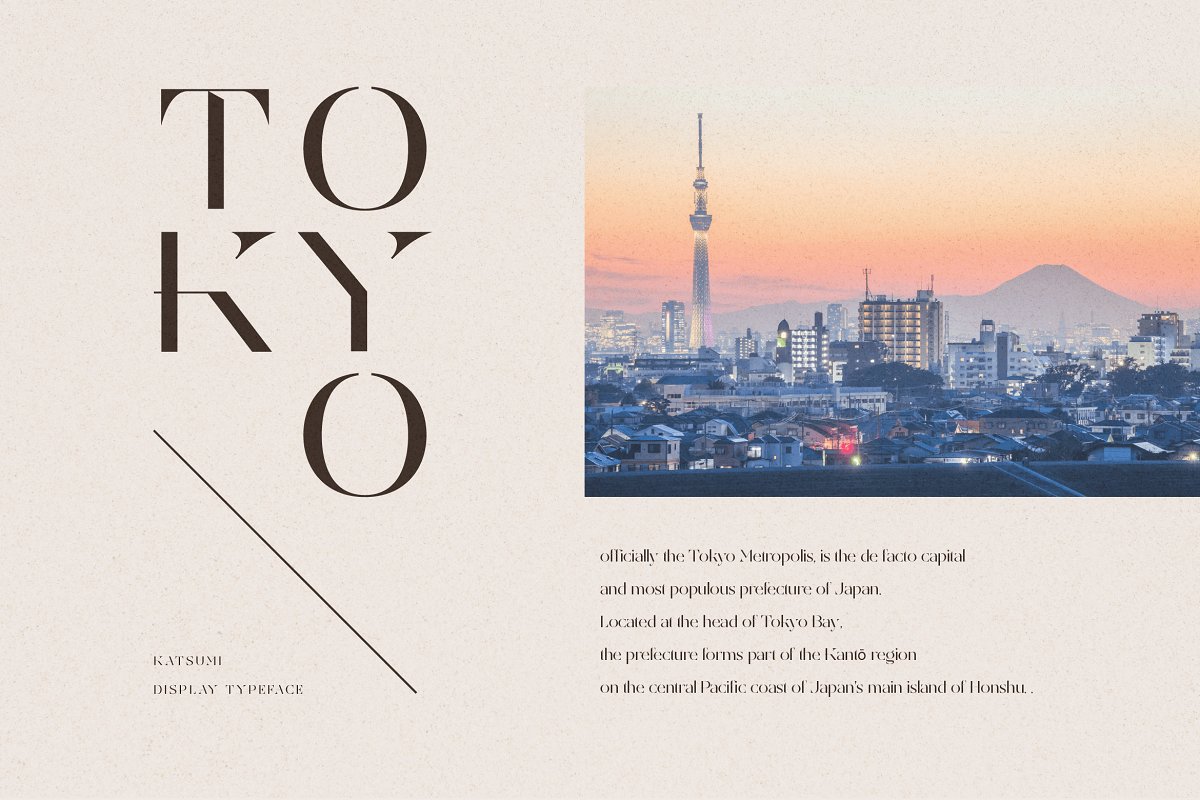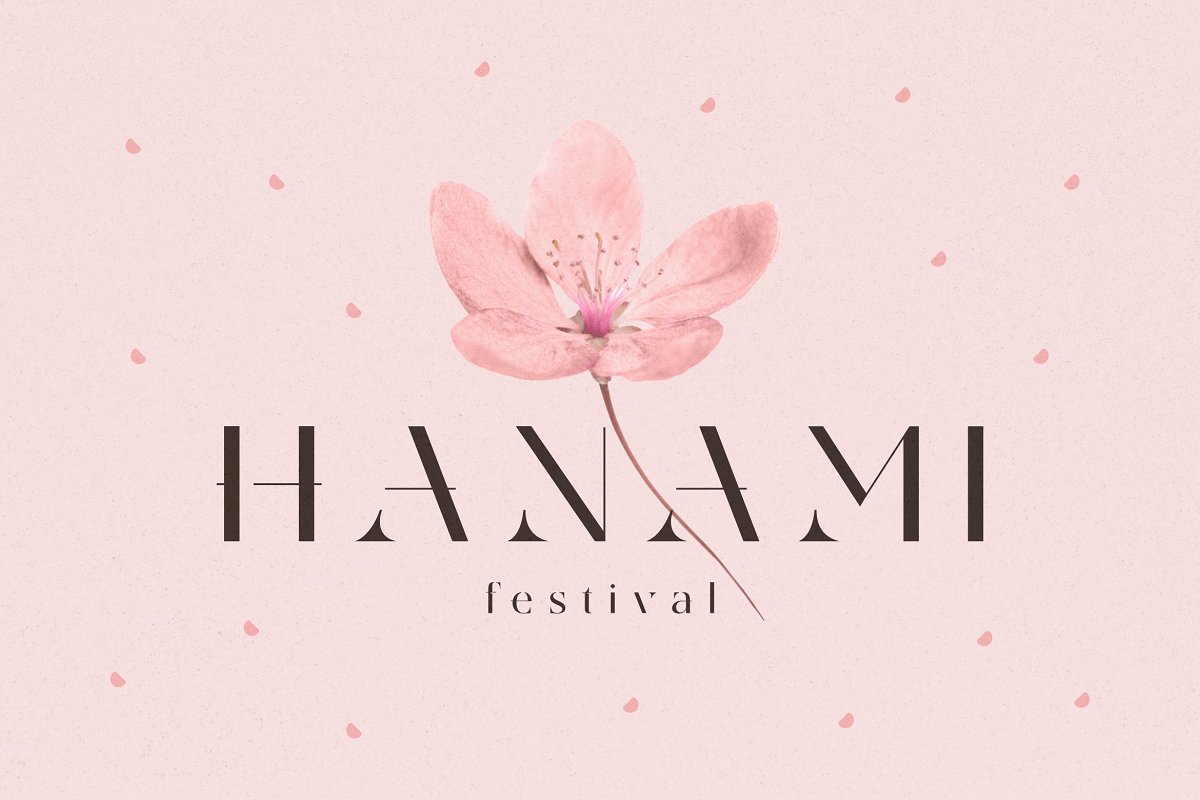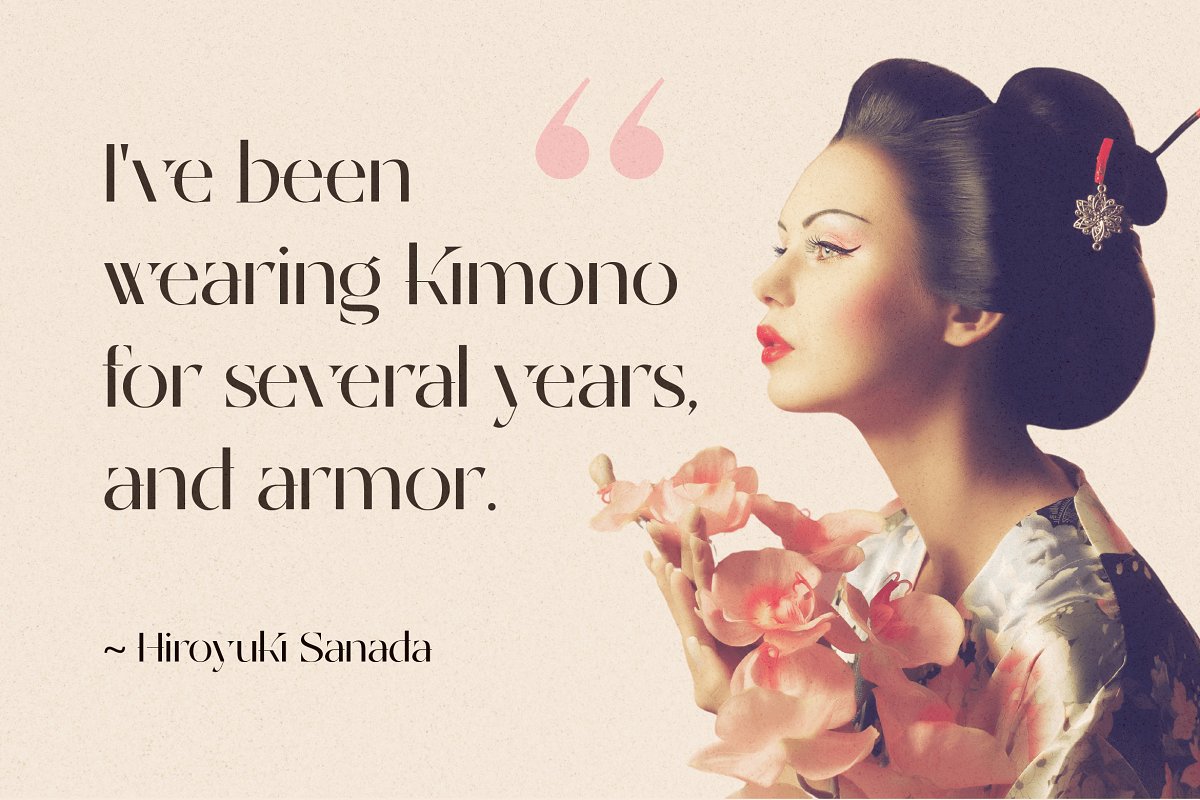
About the KATSUMI Japanese Font
Katsumi is a serif typeface inspired by hiragana, Katsumi meaning victorious beauty, It comes with some alternates and ligatures, Katsumi would be perfect for any Japanese-themed project such as branding, movie title, restaurant menu, labels, and more, FEATURESUPPERCASE and lowercaseLigaturesMultilingual SupportFormat File: OTF, TTF, and WOFFHope you enjoy it, and please don’t hesitate to drop us a message if you have any issues or queries